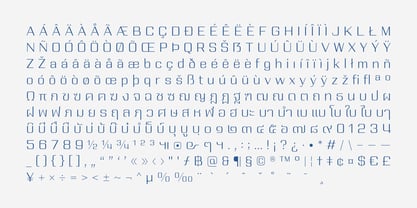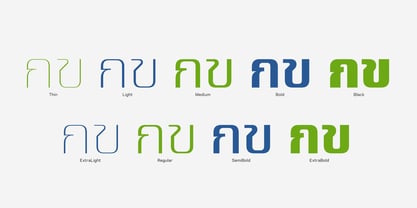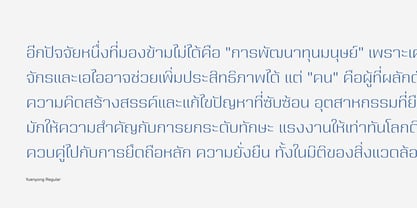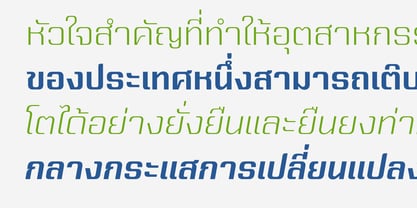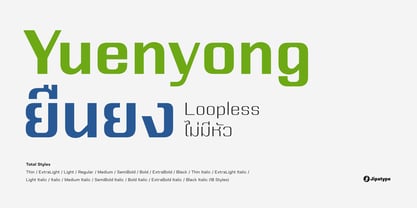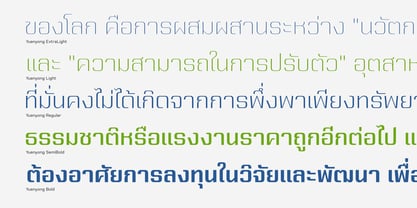
Yuenyong Loopless
by Jipatype
Yuenyong Loopless is a contemporary extension of the Yuenyong typeface family, reimagining the concept of "enduring strength" through a cleaner, more minimalist lens. Building upon the signature rectangular structure and rounded corners of the original design, this version strips away the traditional loops (terminal heads) from the Thai script. The result is a sleek, modern aesthetic that retains the sturdy foundation of its predecessor while offering a fresher, more aerodynamic visual rhythm. Designed to meet the demands of modern branding, Yuenyong Loopless is exceptionally suited for technology companies. The family includes the same comprehensive range of 18 styles—from Thin to Black, with matching Italics—allowing designers to mix and match with the original Yuenyong or use it as a standalone powerhouse for contemporary communication.
Jipatype is a type foundry founded and operated solely by Anupap Jaichamnarn, based in Bangkok, Thailand. Officially established in 2022, the foundry's journey began in 2019. The name "Jipatype" is derived from the Thai word “Jipatha” (จิปาถะ), meaning "miscellaneous" or "variety." This name reflects the diverse design concepts and influences that shape Jipatype’s versatile font collections.